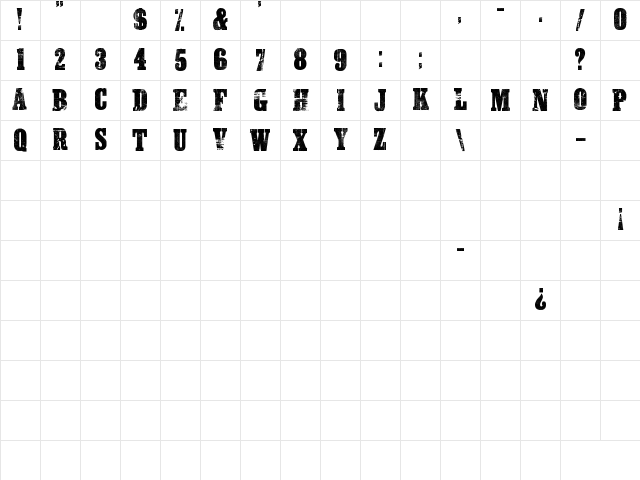
Danger Zone Warning Regular Free Font
Danger Zone Warning Regular
Designer: IMAGEX
Design Context for Danger Zone Warning
Danger Zone Warning is a composed and adaptable typeface that performs quietly and consistently across a wide range of design contexts.